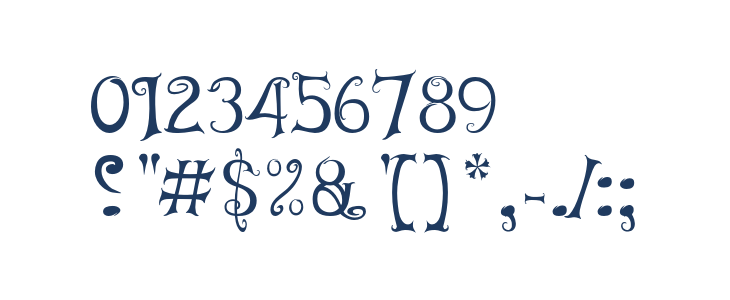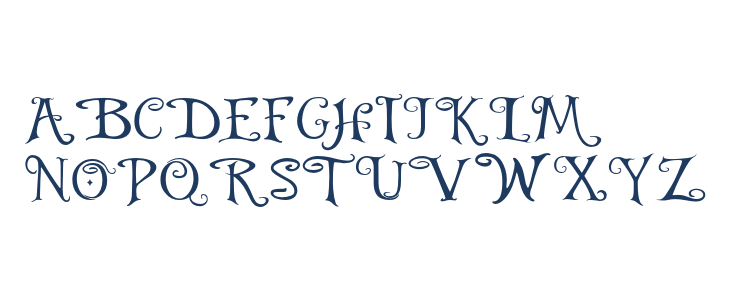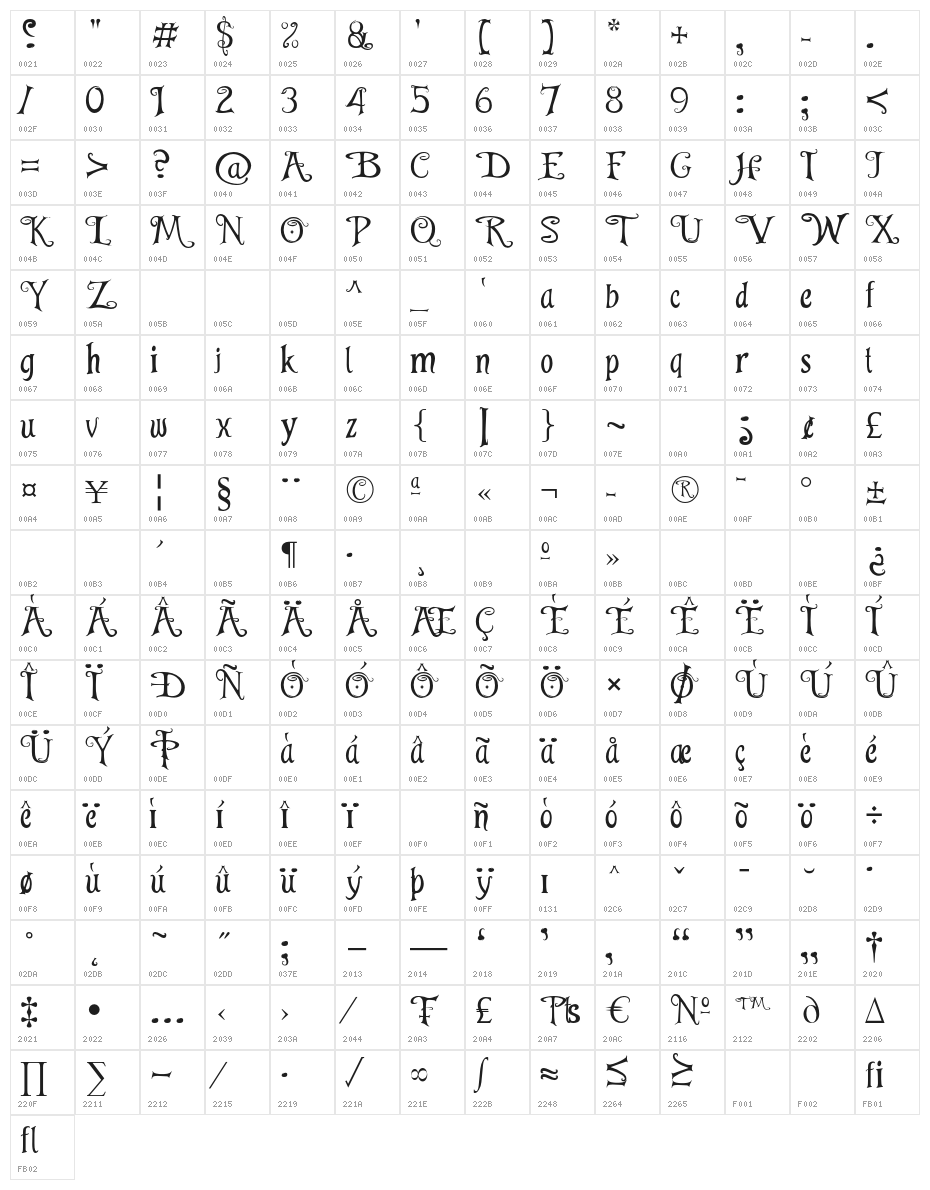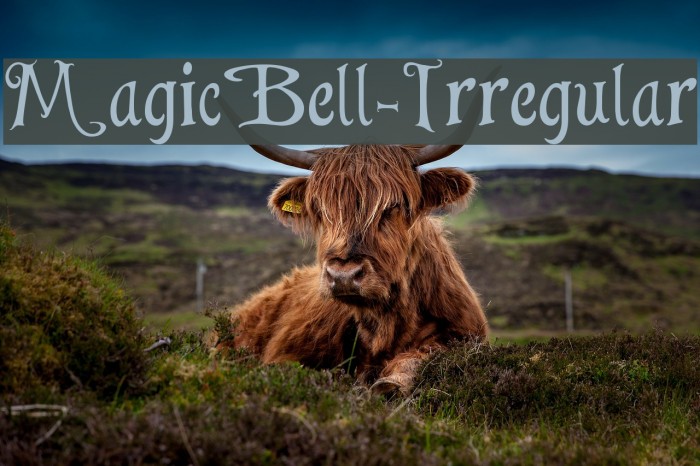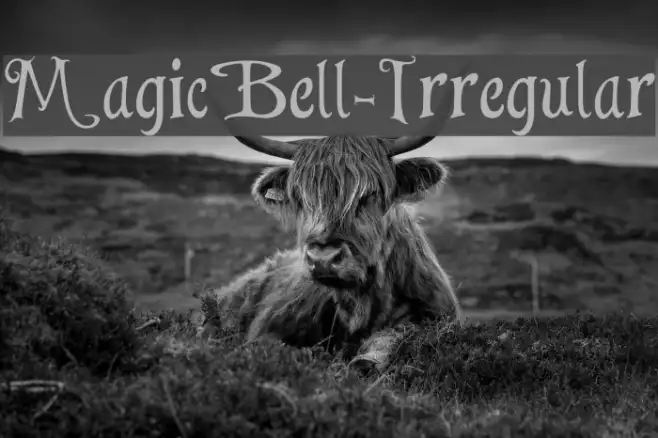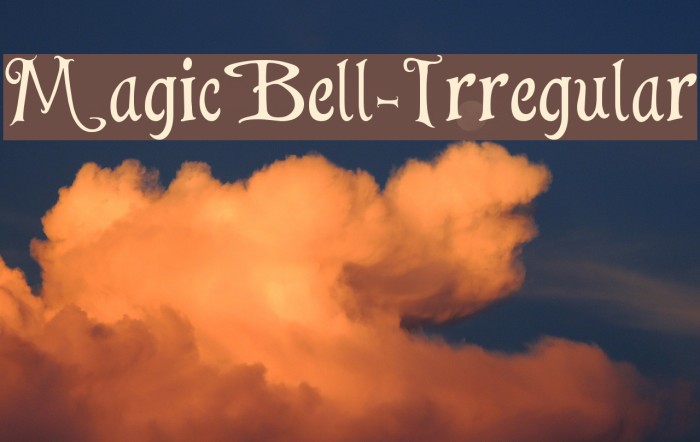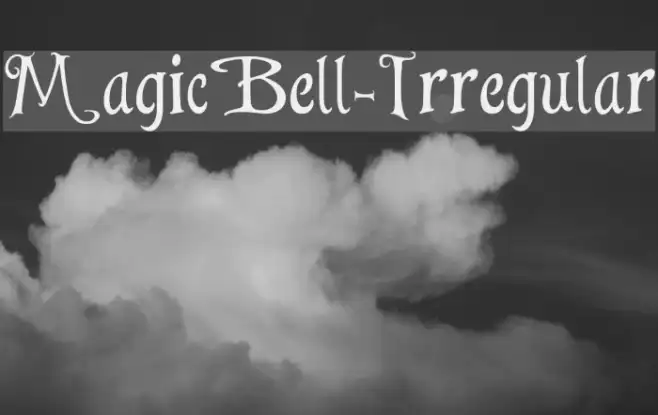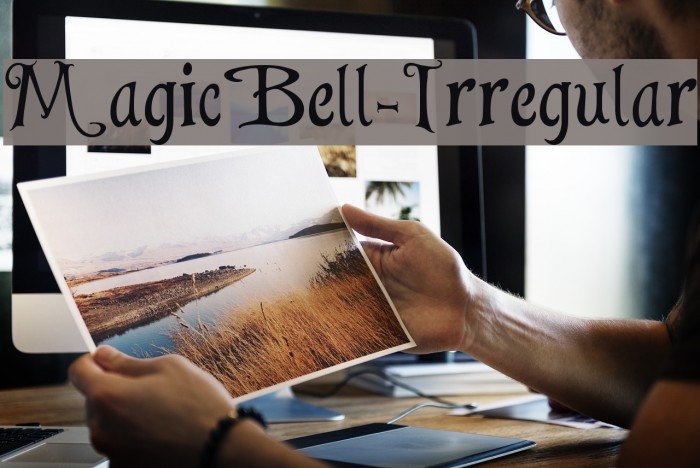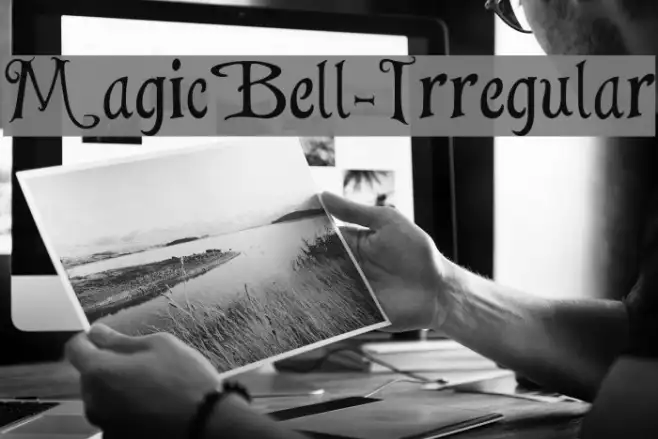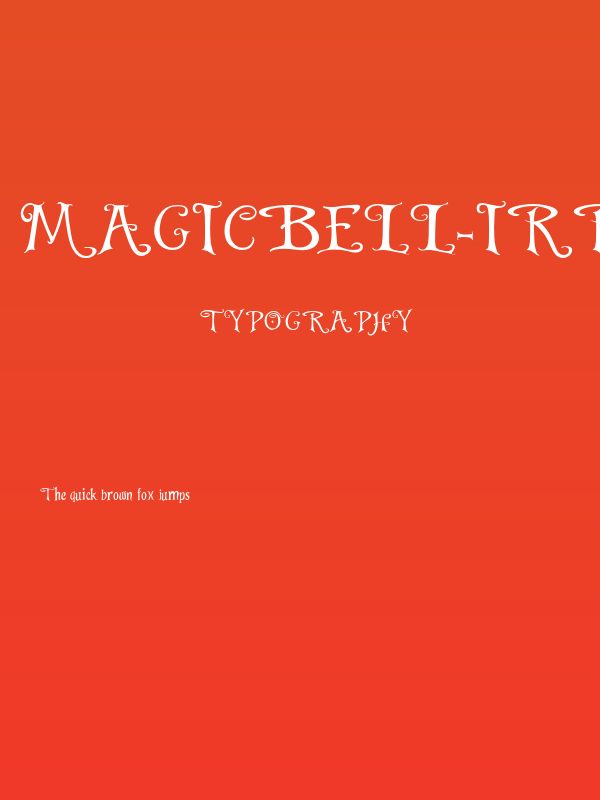
MagicBell-Irregular Font
MagicBell-Irregular Description
This font features a whimsical and playful design with irregular, flowing lines that give it a unique, hand-drawn appearance. The uppercase letters have decorative swirls and curls, adding a touch of elegance and fantasy. The lowercase letters maintain a consistent style, with some characters exhibiting exaggerated curves and loops. The numbers are bold and distinctive, with a similar decorative flair. Special characters are creatively designed, maintaining the overall whimsical theme. This font is perfect for projects that require a touch of creativity and imagination.